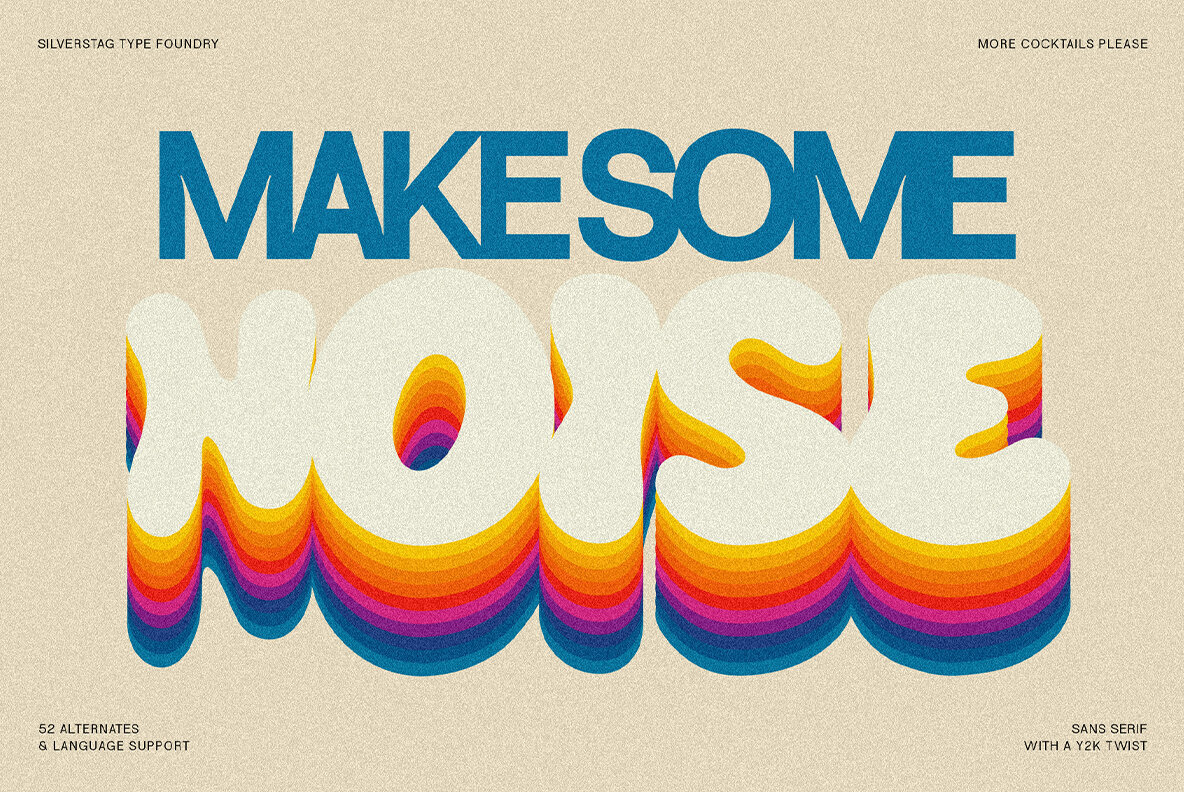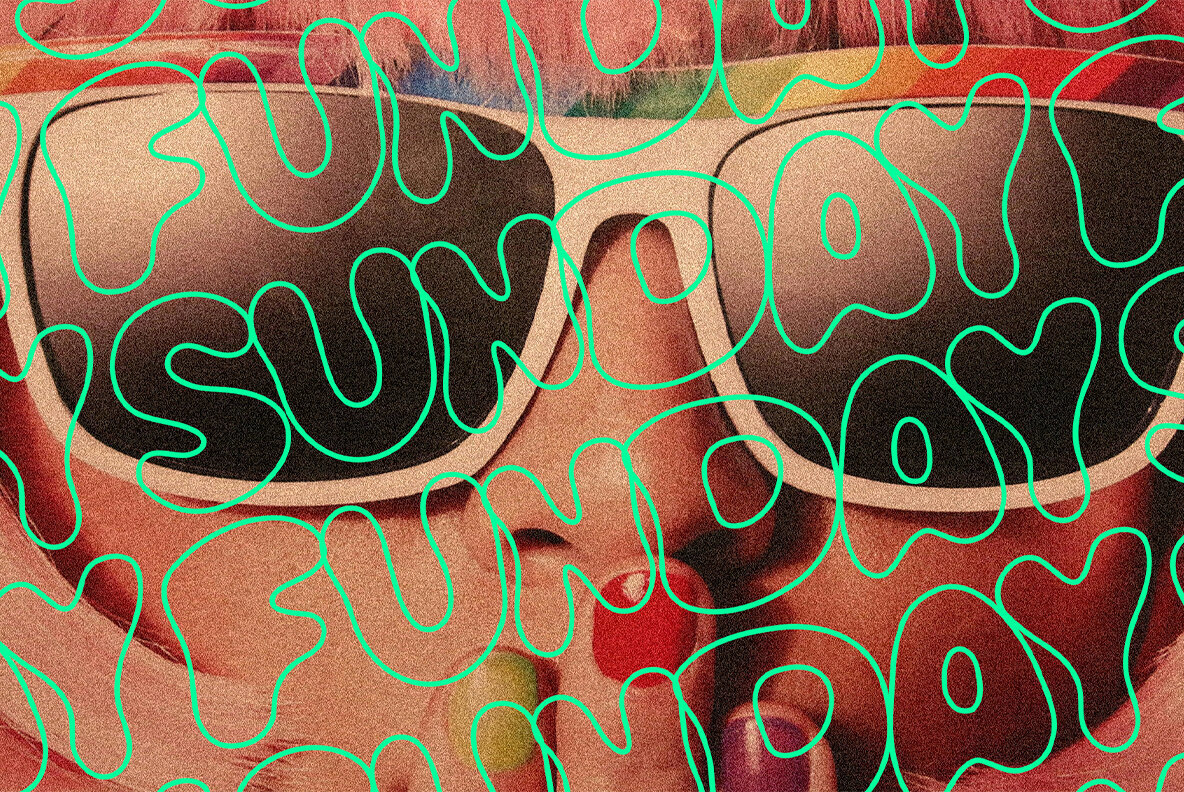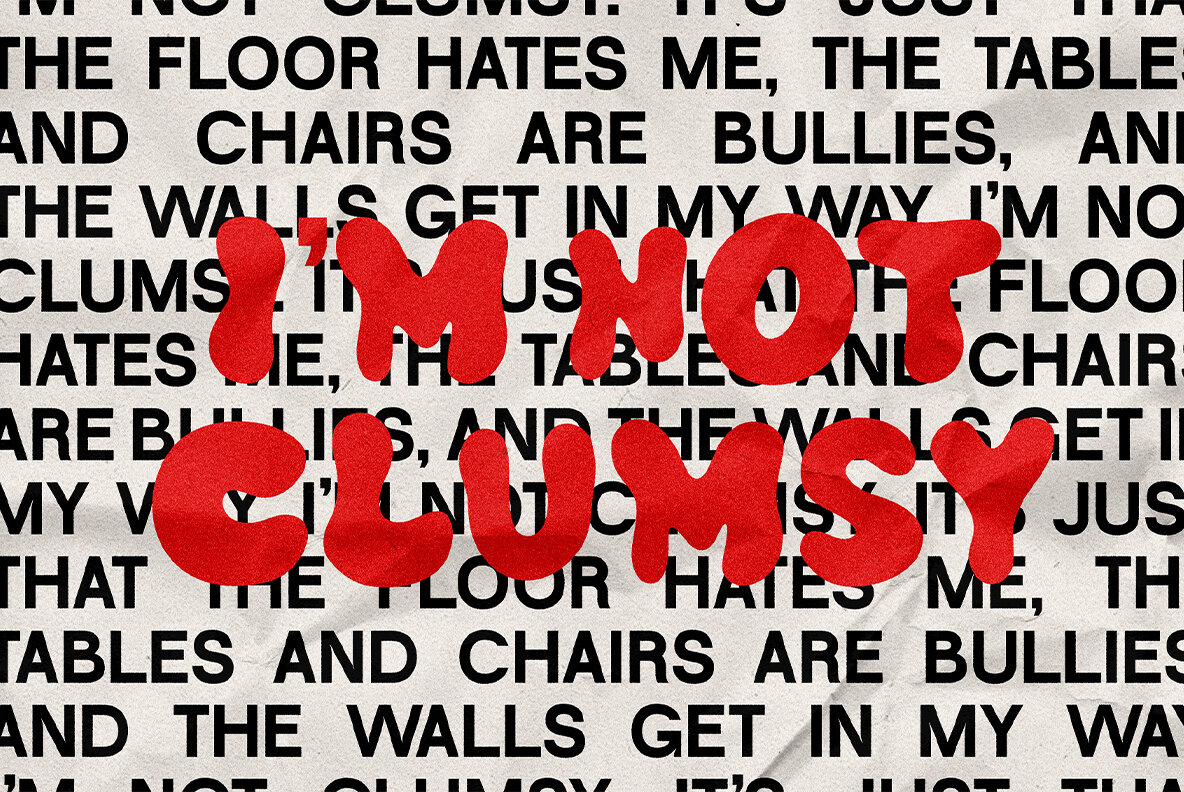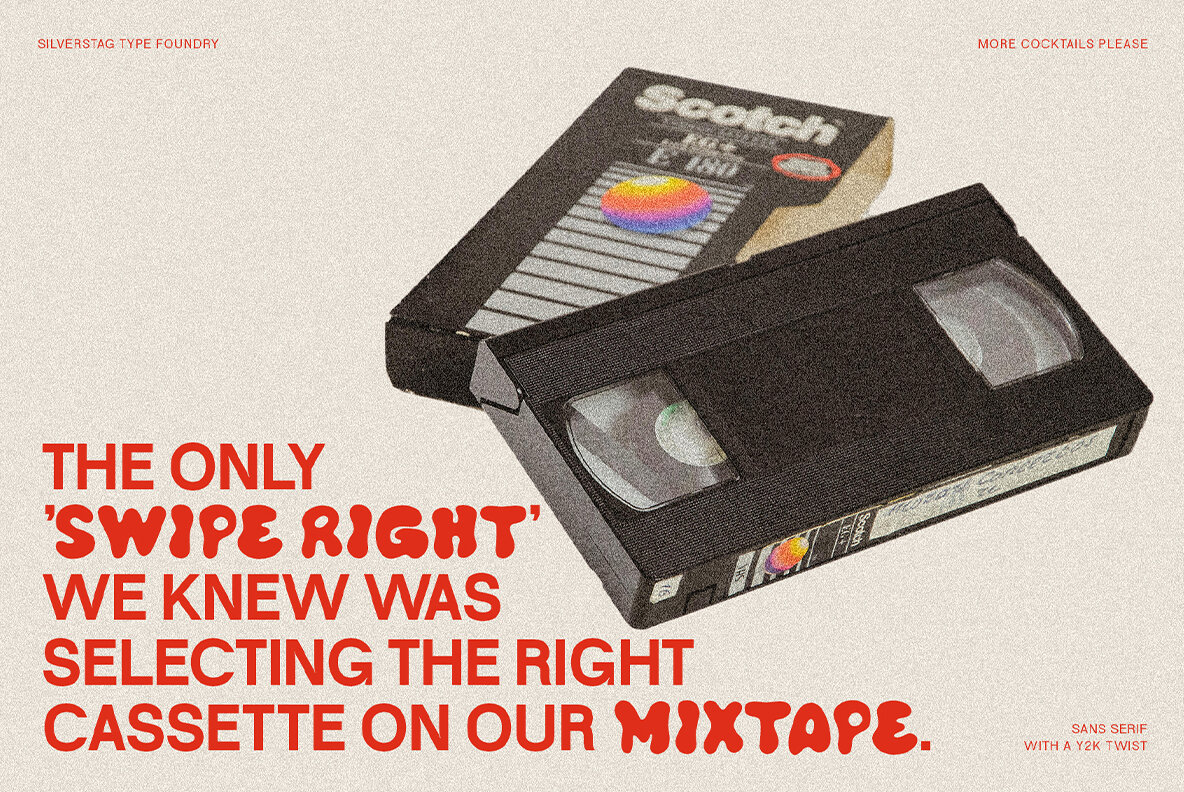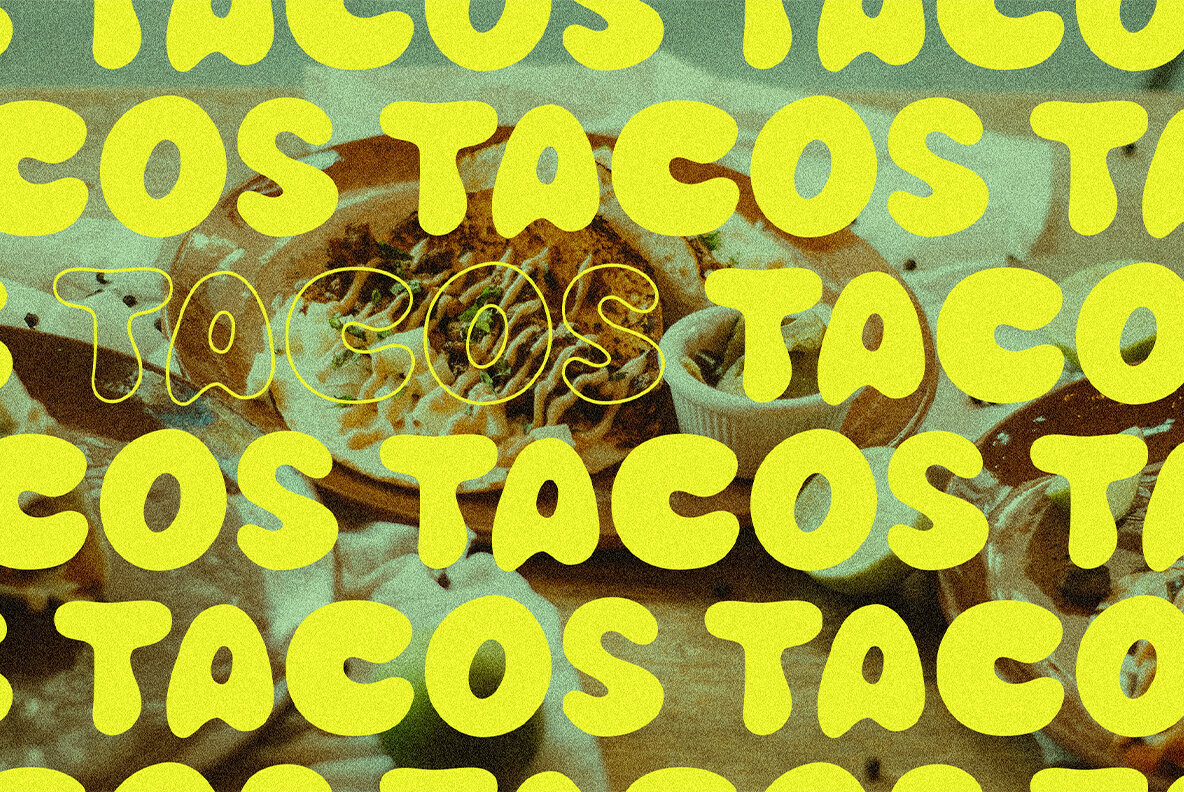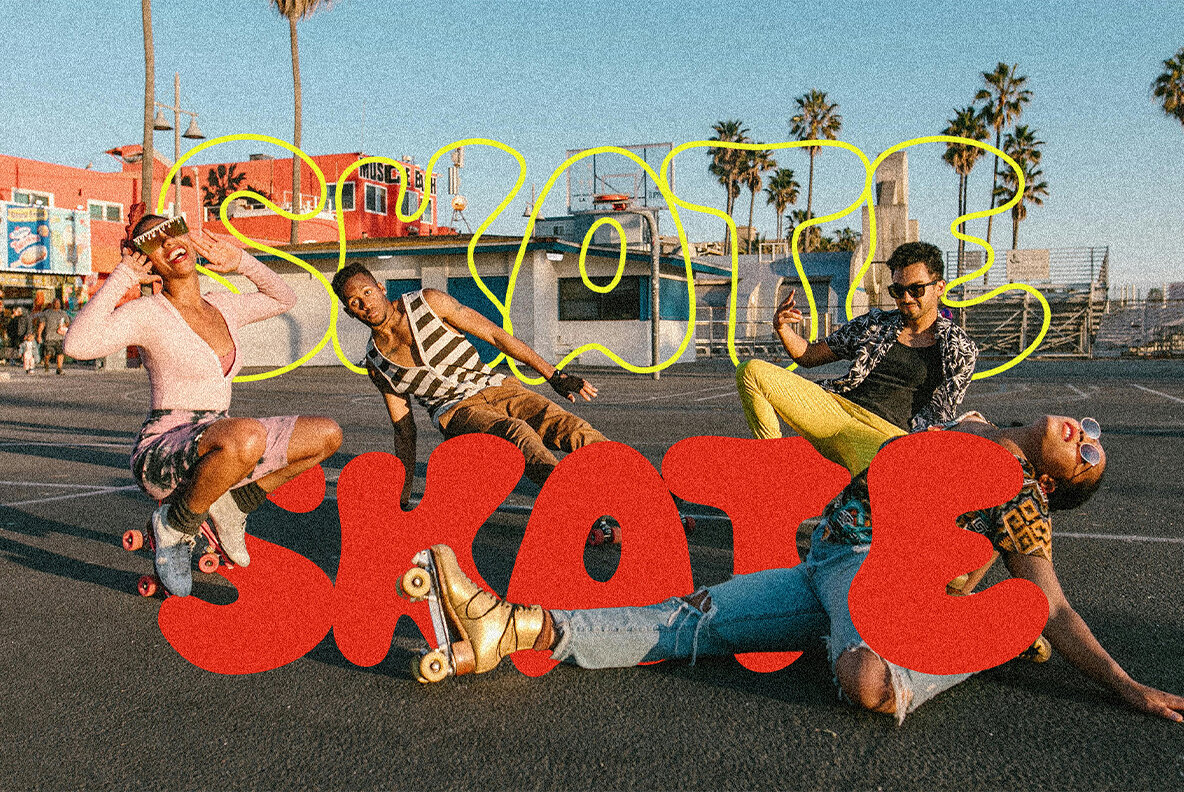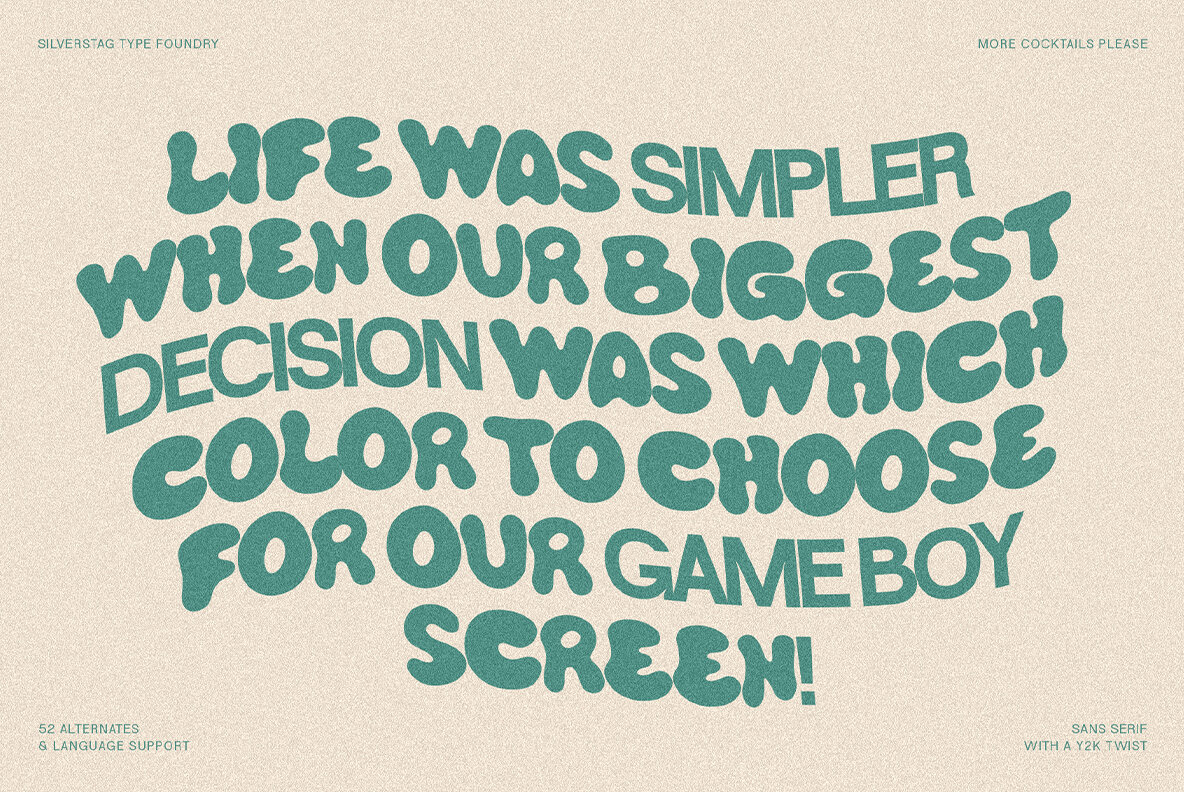
Introducing More Cocktails Please, a captivating font that encapsulates the vibrant spirit of the Y2K era. Inspired by the bold, playful typography of the time, this font exudes an irresistible charm that will add a touch of retro nostalgia to your designs. With two unique sets of uppercase alternates, More Cocktails Please offers a multitude of creative possibilities. The main font features a bold sans serif style, while the alternates are hand-drawn and feature funky, curvy bubbly letters. This combination of styles creates a dynamic and eye-catching typography that is sure to capture attention. More Cocktails Please boasts over 52 ligatures and alternates, allowing you to personalize your lettering and add a touch of individuality to your designs. These decorative elements add visual interest and enhance the overall appeal of your projects. With its extensive language support spanning over 90 languages, More Cocktails Please is a versatile font suitable for a wide range of design applications. Whether you're crafting captivating headlines, designing bold logos, or creating eye-catching marketing materials, More Cocktails Please will seamlessly complement your vision. Embrace the retro funk of More Cocktails Please and let it transform your designs into works of art.